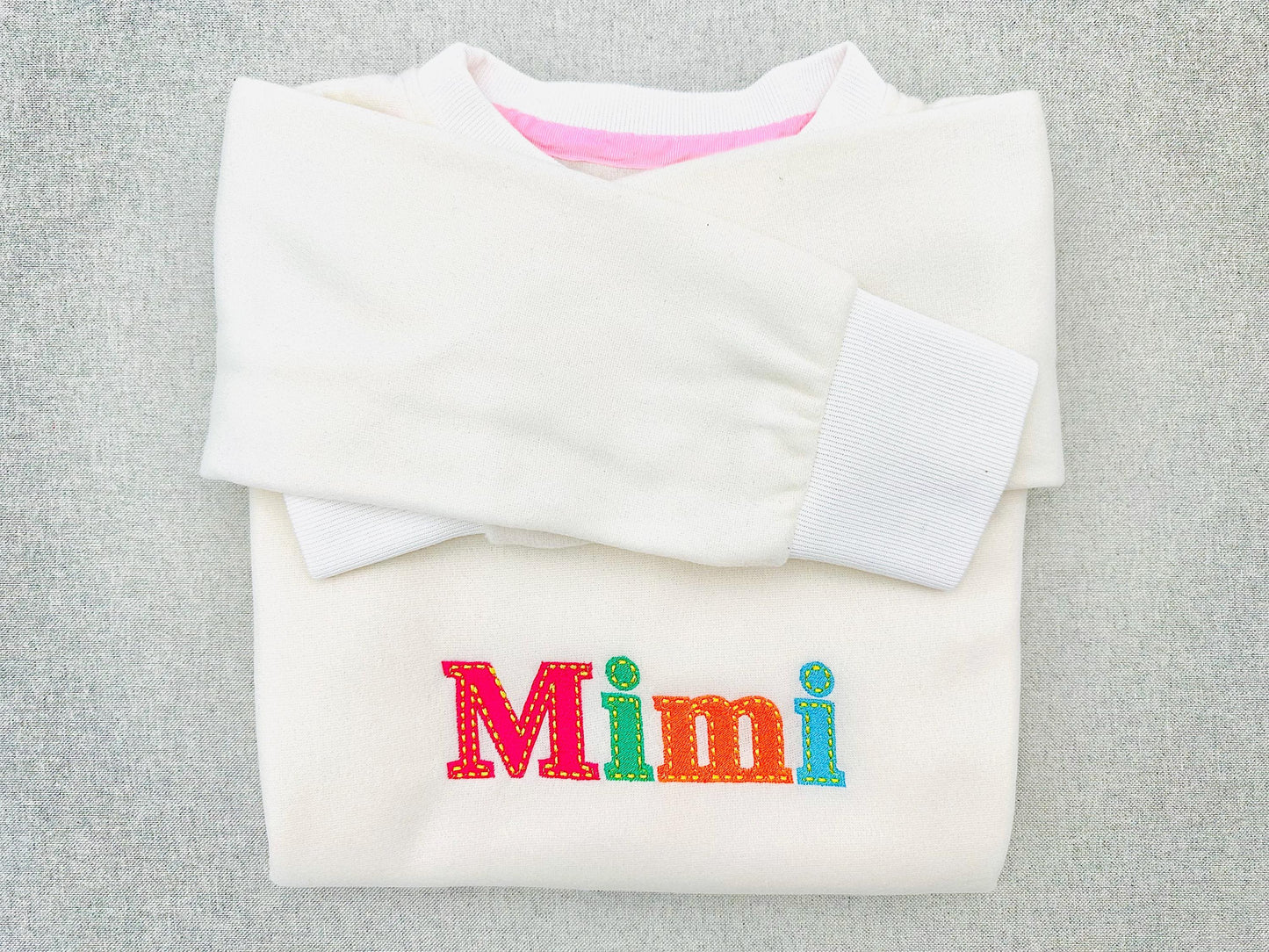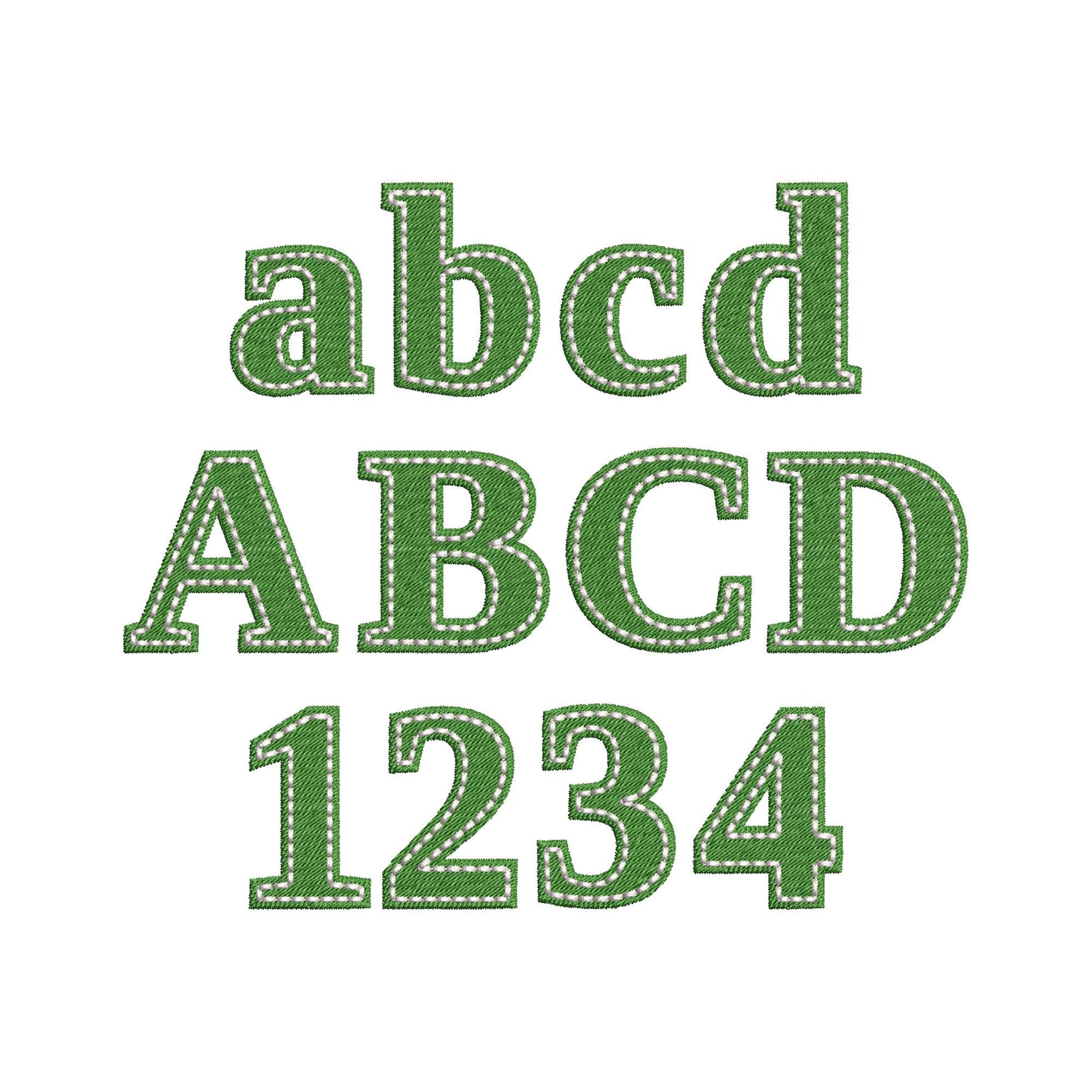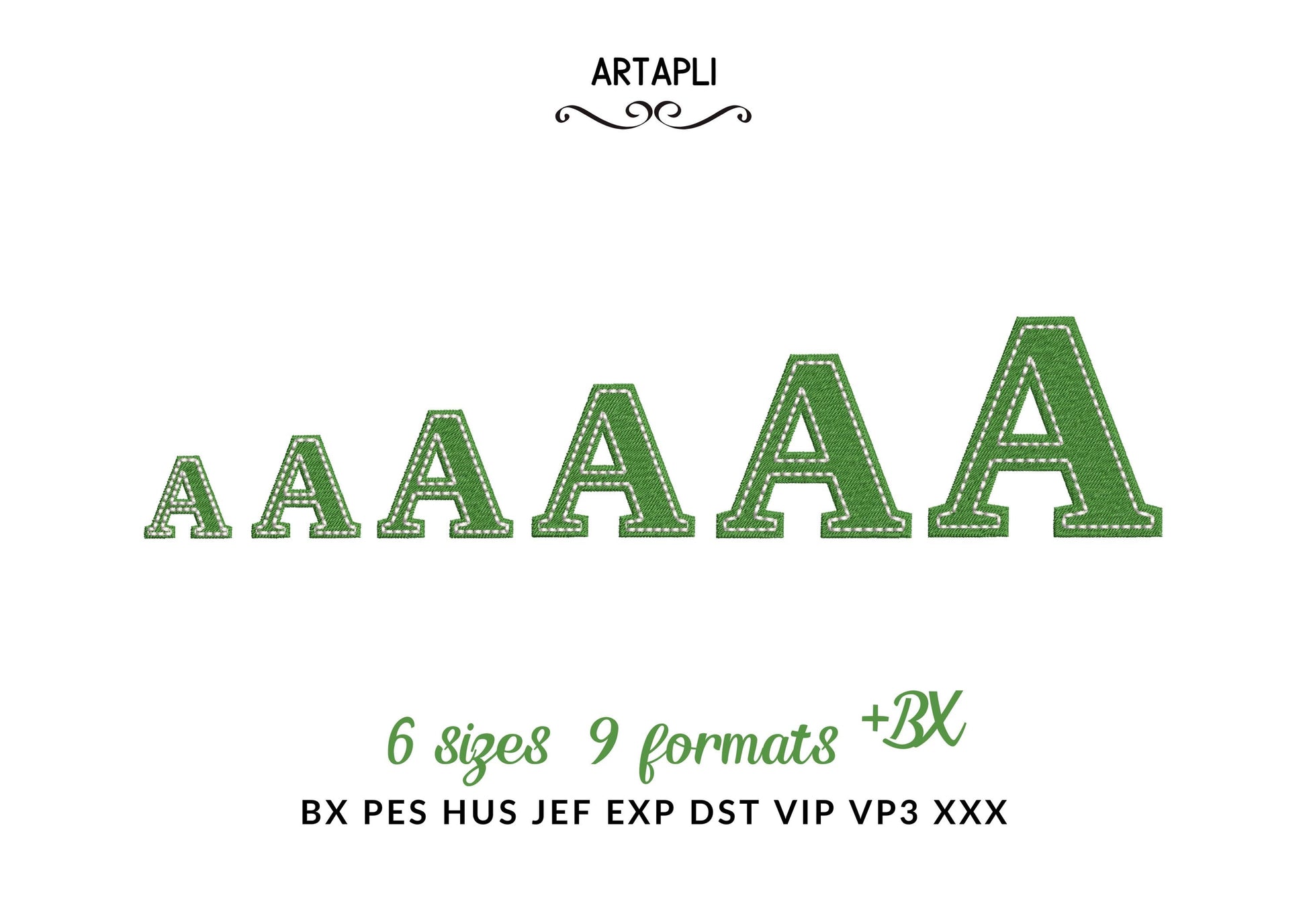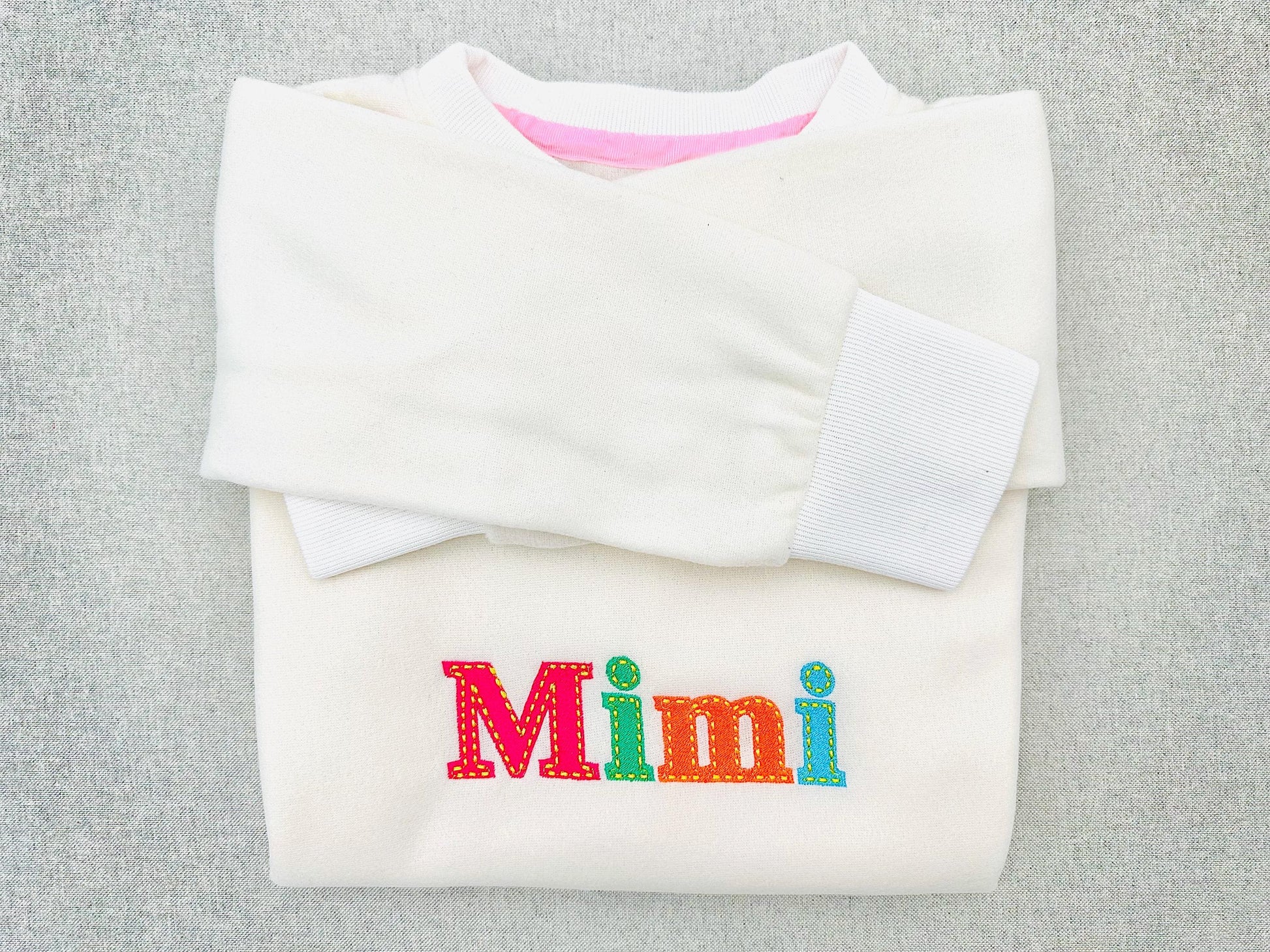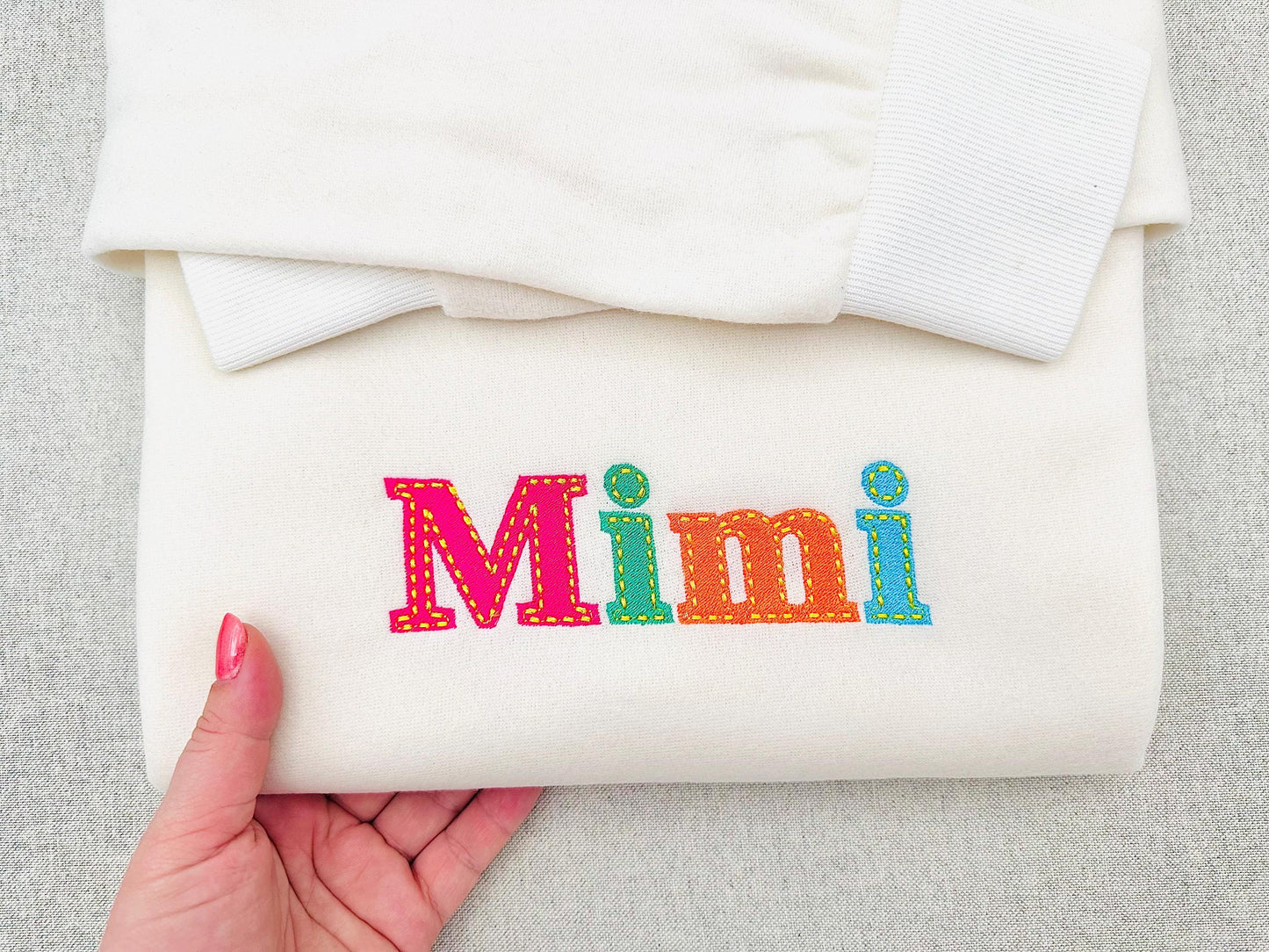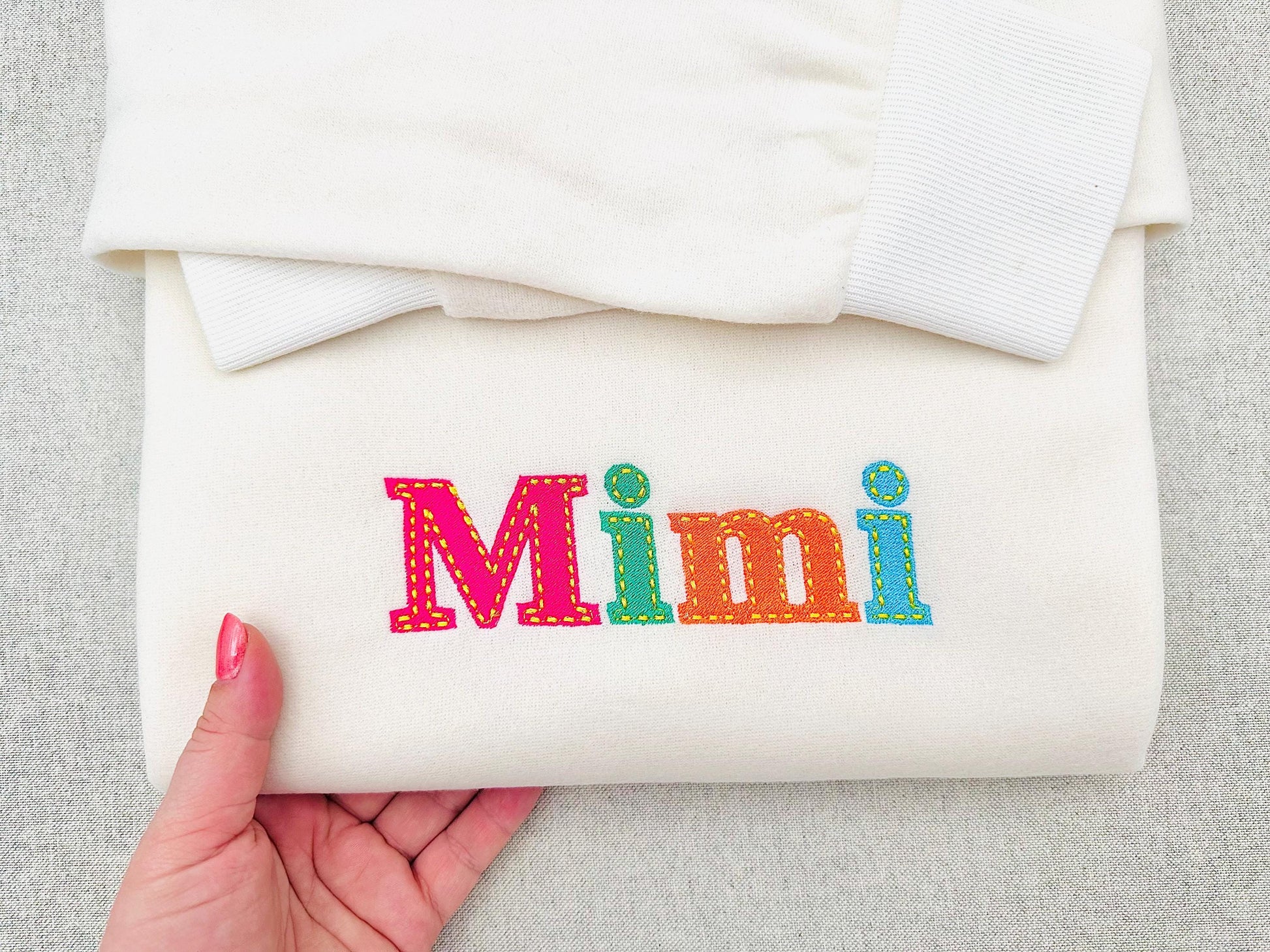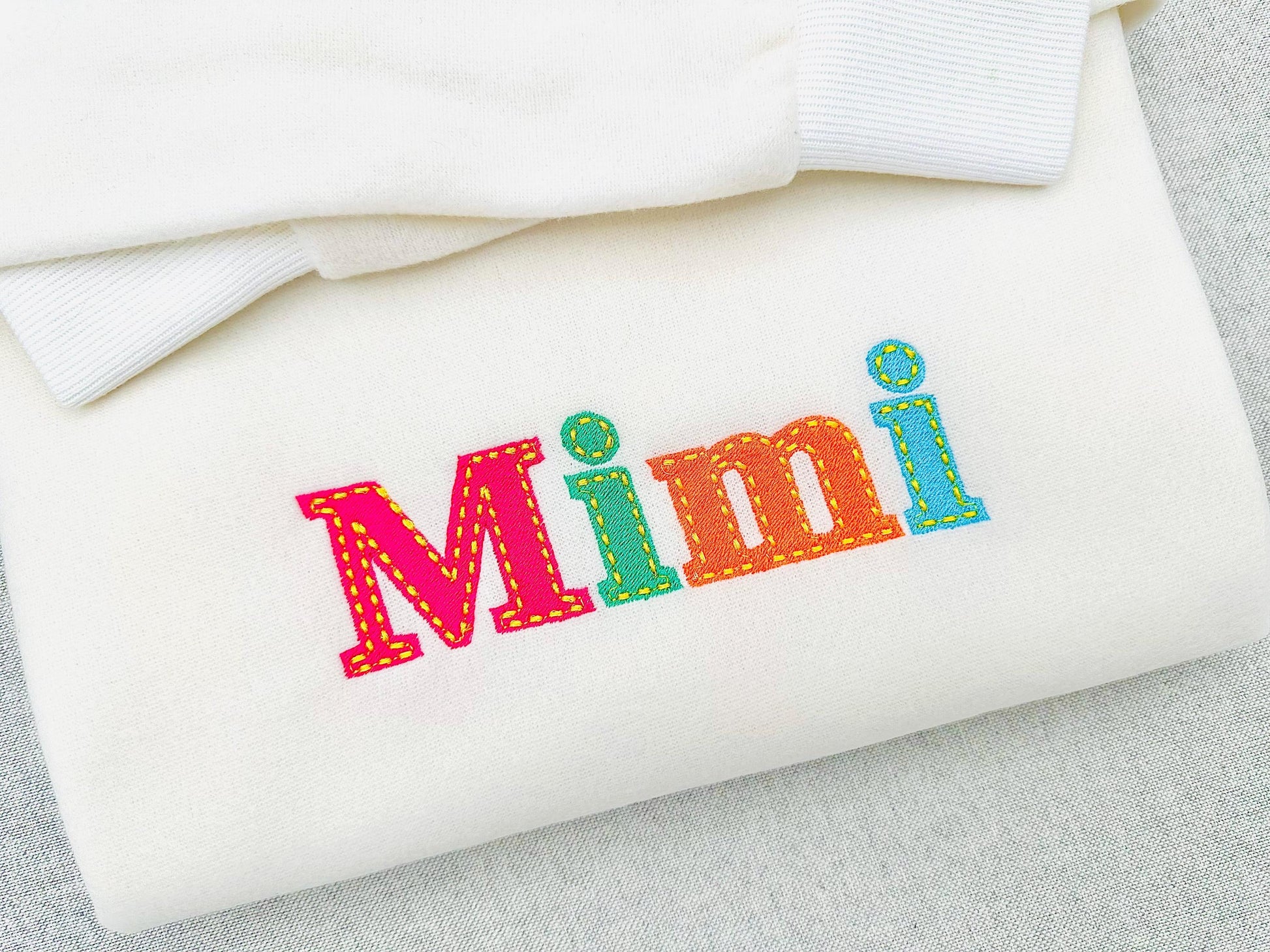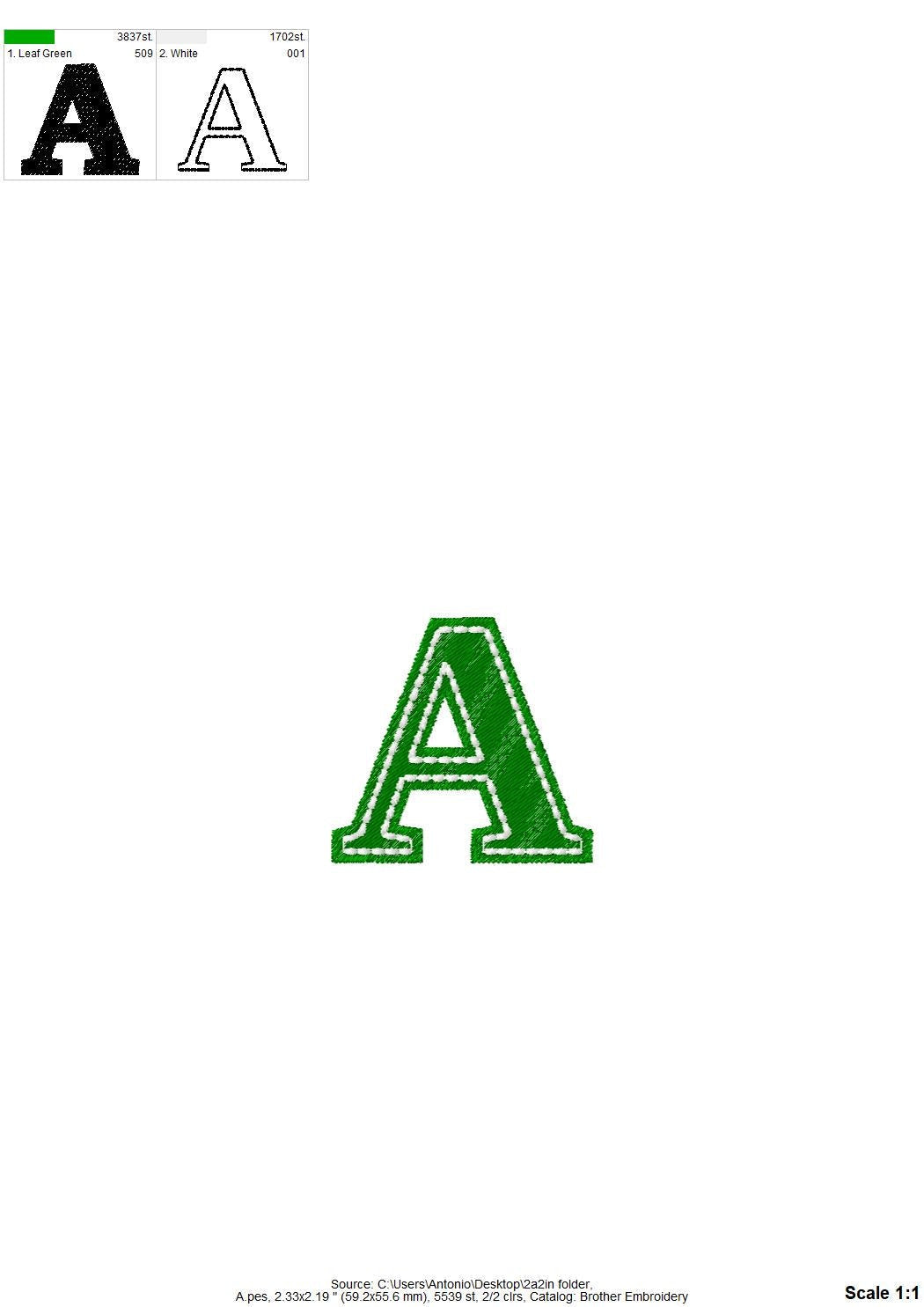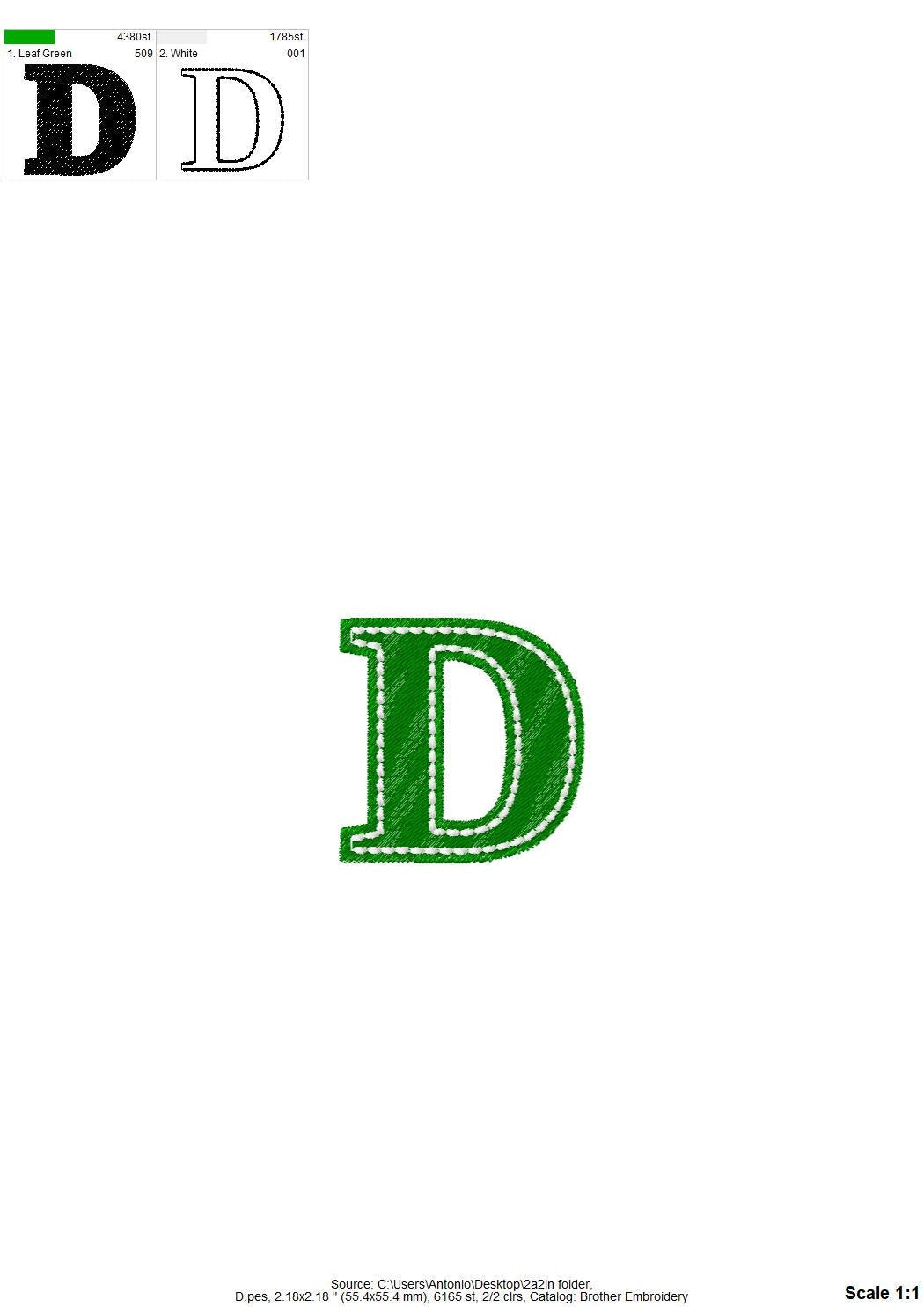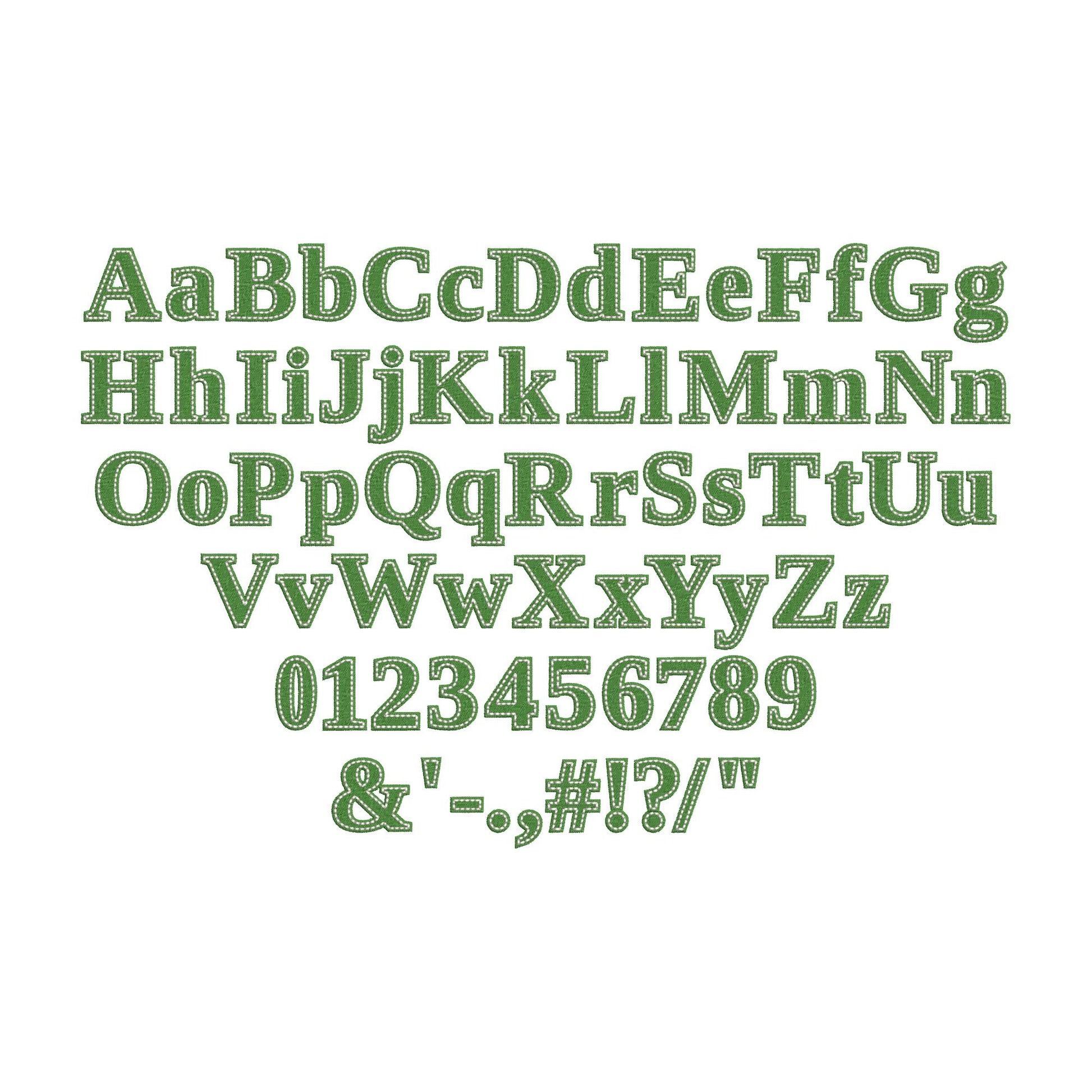
Fill Stitch Font Tinsley
Or click to open the linkA bold fill stitch font with a hand-stitch line on top. Fun for kids names, monograms and numbers on shirts, towels and bags.
The letters come in six sizes: 1.2, 1.5, 1.8, 2.2, 2.6 and 3.1 inches. Includes uppercase and lowercase letters, numbers 0-9 and punctuation.